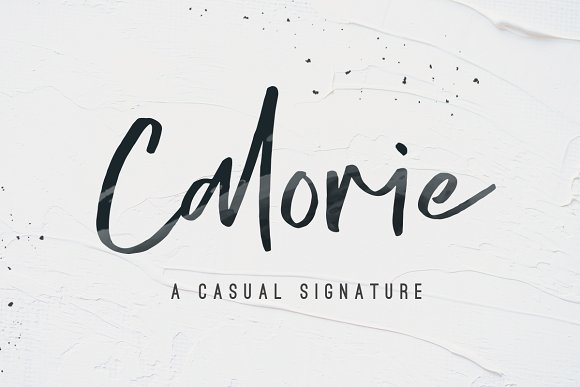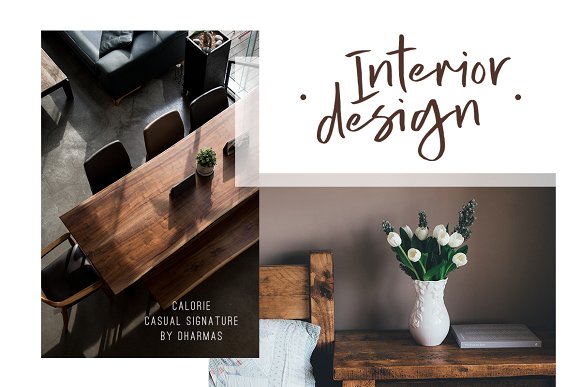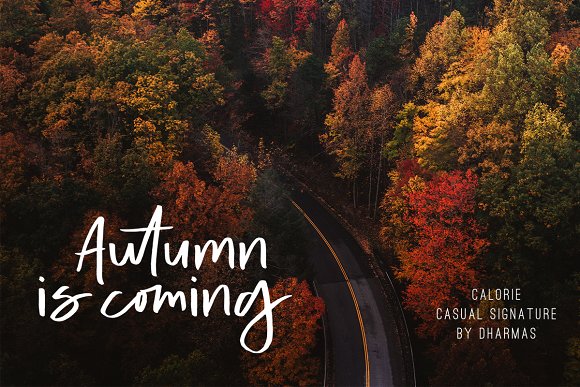
Calorie Script Font
Calorie is a rustic, textured script that works great for logos, branding, quotes, social media, and even lettered wrapping paper!
Calorie includes non-English characters, .ttf, .otf, and files for both print and web use. It would make beautiful signage with a cricut machine or looks beautiful in printed materials, like when it’s embossed on wedding invitations.